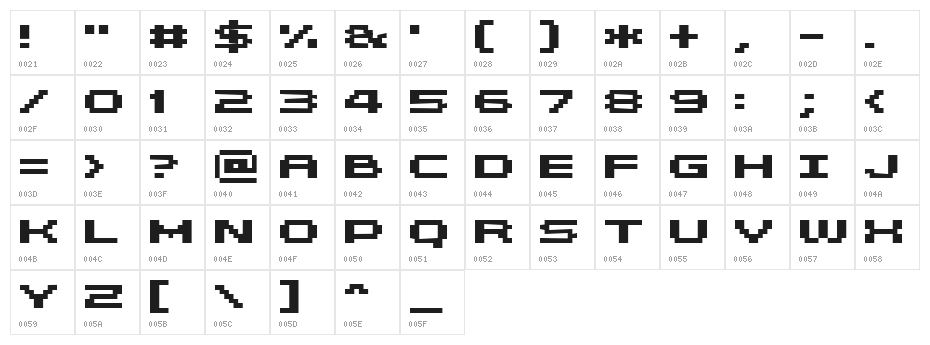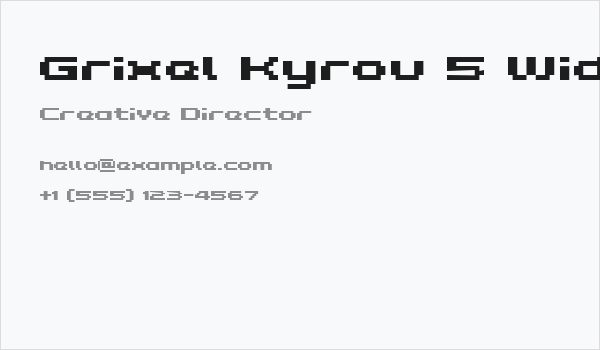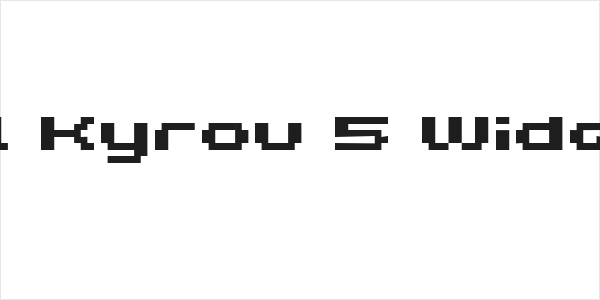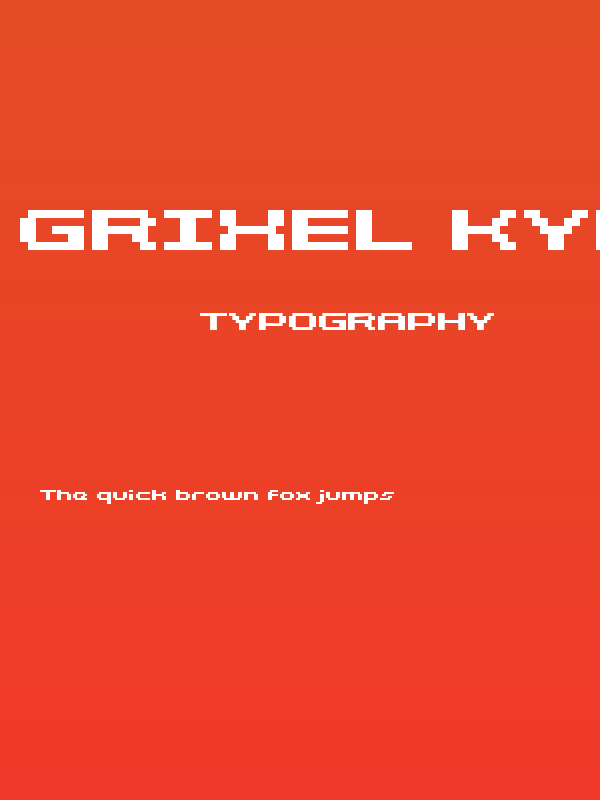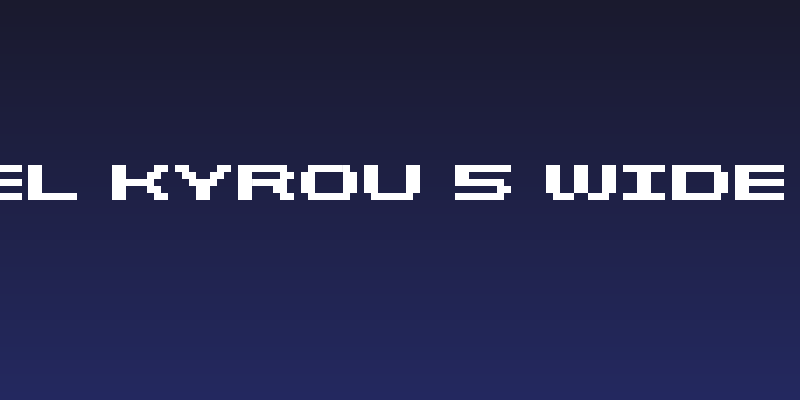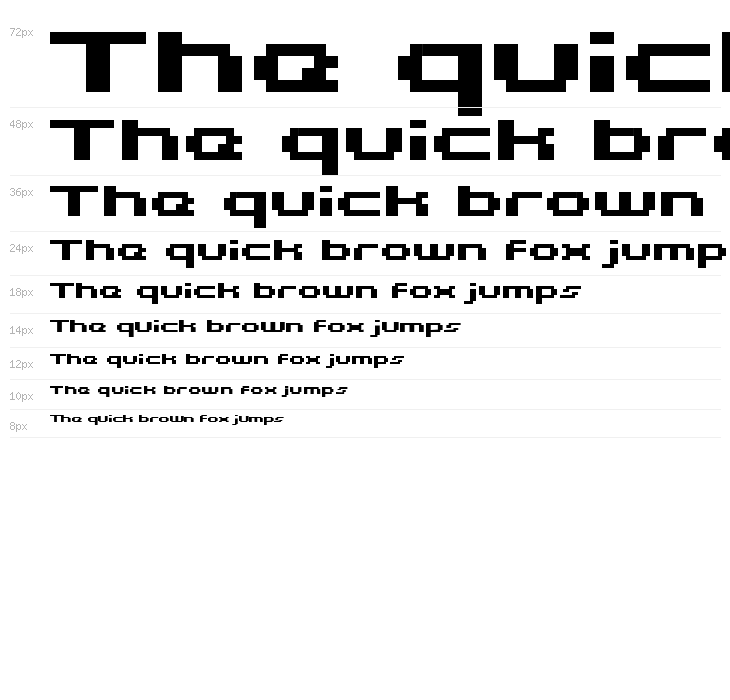
Grixel Kyrou 5 Wide Bold Font
Grixel Kyrou 5 Wide Bold Description
This font features a bold, pixelated design reminiscent of retro video games and digital displays. Each character is constructed with a blocky, grid-like structure, giving it a distinctly digital and geometric appearance. The uppercase and lowercase letters maintain a consistent width, contributing to a uniform and cohesive look. The numerals and special characters follow the same pixelated style, ensuring visual harmony across all elements. The font's boldness enhances its legibility, making it suitable for attention-grabbing headlines or titles. Its nostalgic aesthetic evokes a sense of classic gaming and early computer graphics, appealing to those looking to incorporate a vintage digital feel into their projects.
| Proposed Projects | Perfect for retro-themed video games, digital art projects, or any design requiring a nostalgic, pixelated look. |